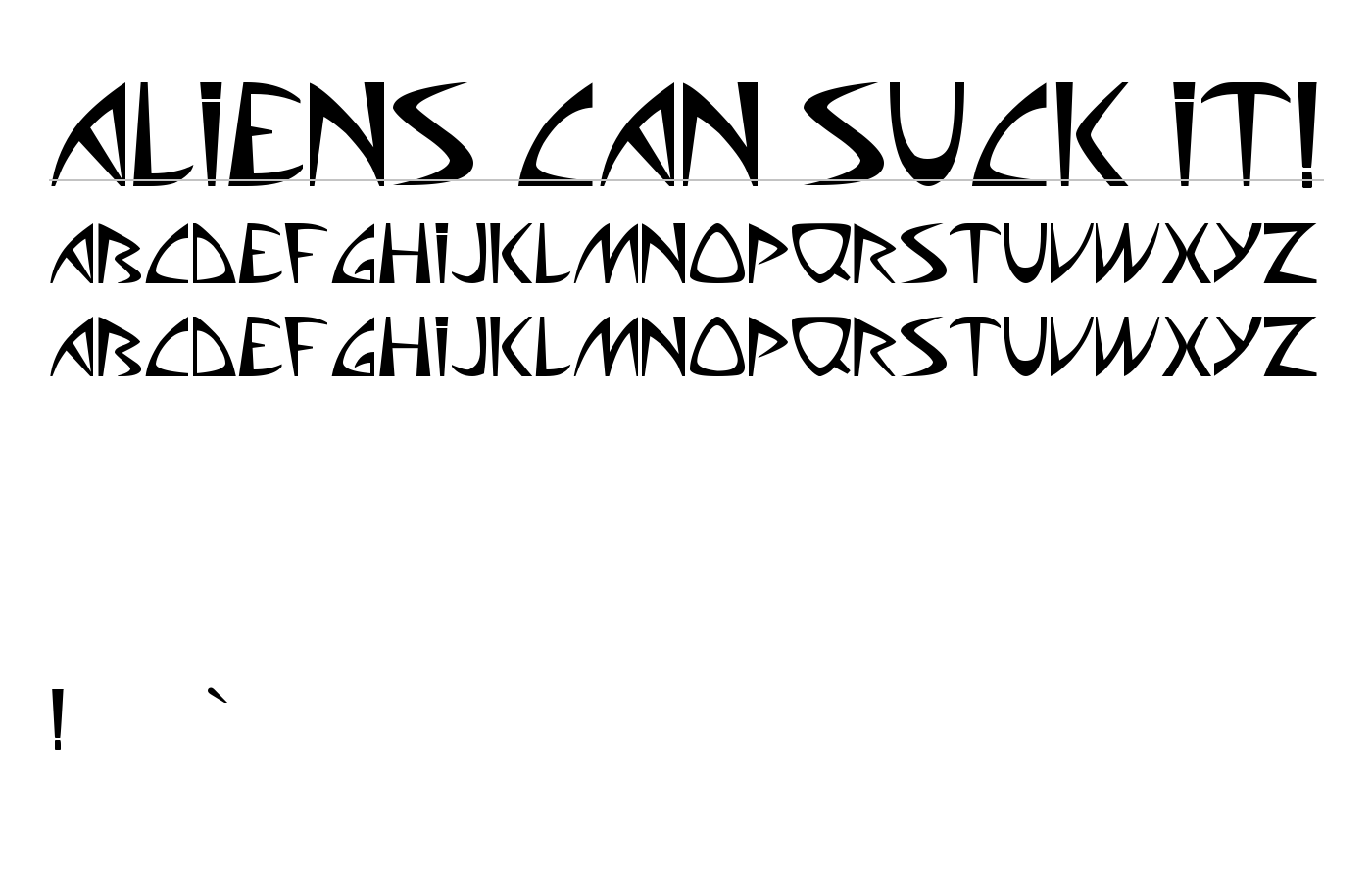
"Aliens Can Suck It!" is a quirky, angular display font with a unique sci-fi vibe, characterized by sharp, irregular letterforms and a playful yet edgy personality. Its tall, narrow shapes and uneven strokes give it a dynamic, otherworldly feel, making it ideal for bold headlines, posters, and creative projects that want to convey a sense of fun and rebellious energy. This font works particularly well in designs needing a distinctive, futuristic look with a touch of humor.
Aliens can suck it! Font
About Aliens can suck it! Font